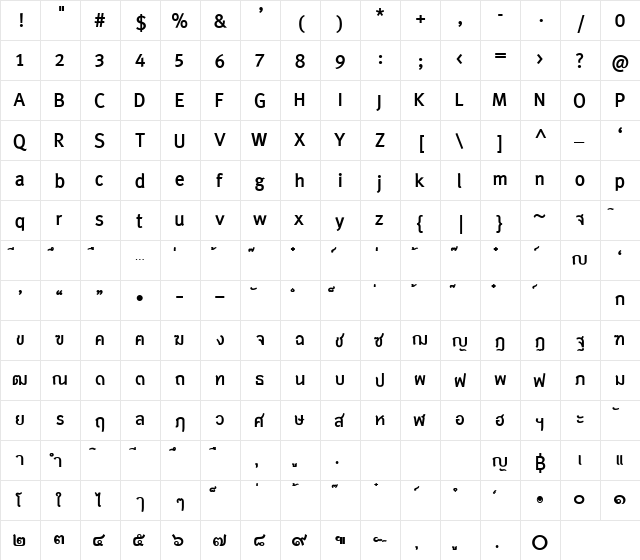
SP ThunderFox Bold Regular
| Foundry | Sampan Sittiwantana |
Design Context for SP ThunderFox Bold Typeface
SP ThunderFox Bold offers clean, dependable letterforms without strong stylistic allegiance, making it a practical choice for designers who need flexibility. The heavy weight commands attention and anchors typographic hierarchies.
Pro Tip: Pair SP ThunderFox Bold with a font of contrasting weight or personality to build a more expressive typographic hierarchy.